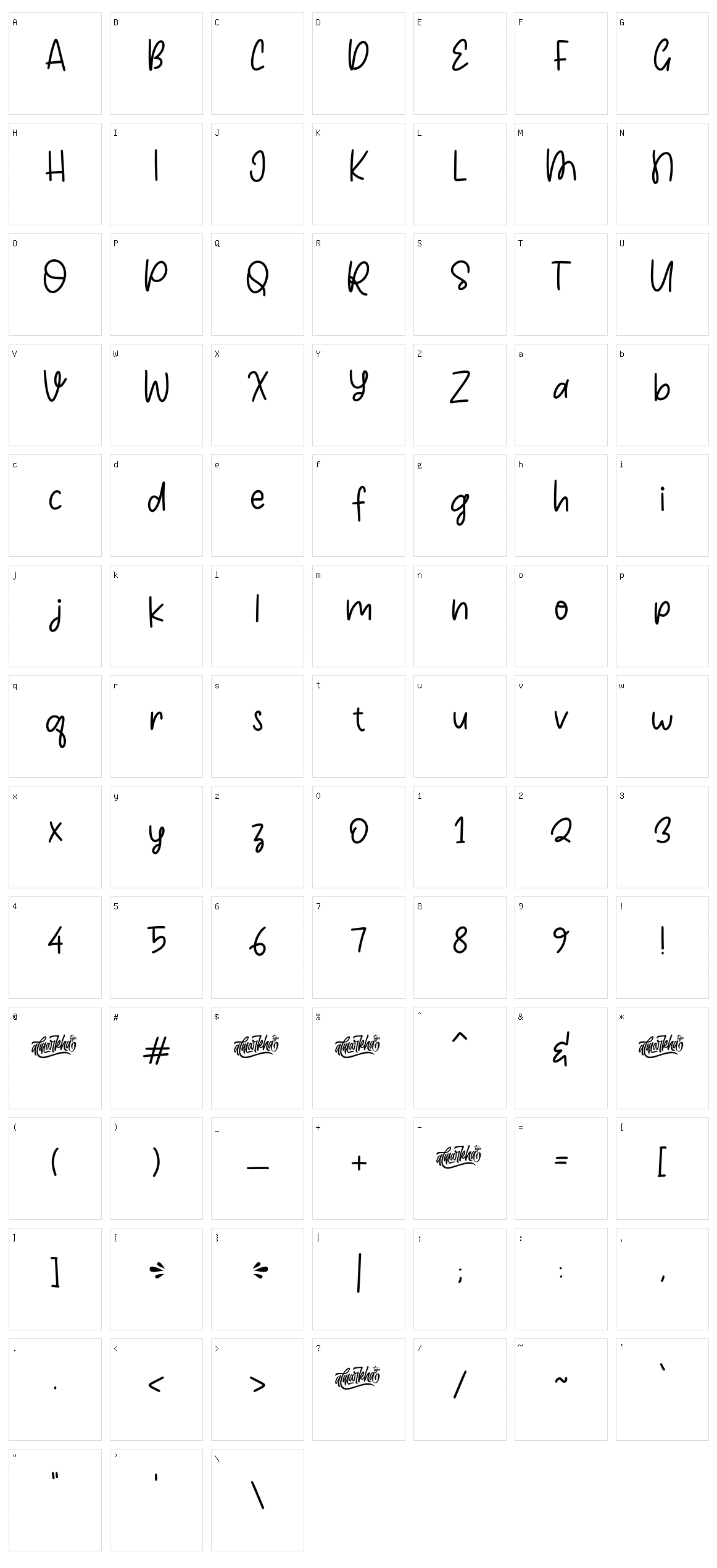
The free font Salt & Pepper is carefully designed by Almarkhatype, showcasing a thoughtful balance of creativity and usability and falls under the Script font style. When you download the ZIP file, it contains only 367.74 KB of font files, making it lightweight and quick to download. Please review the license details below to understand permitted usage and distribution rights. If license information is not available, we recommend using this font for personal projects only or contacting the author directly for commercial usage permissions.